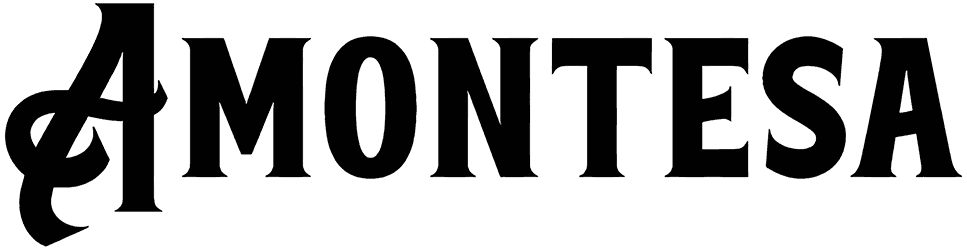
Amontesa Font
Let’s see how ravishing your vintage design will be with this retro font and its classic form. The Amontesa font has adorned serif letters, but we should mention that it doesn’t support lowercase letters. With two sets of caps, you can count on this barbershop font to decorate your shop sign timelessly and memorably.